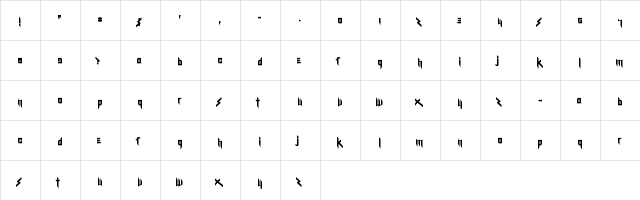
Kitty Katastrophe Regular
| Designer | Andrew McCluskey |
Design Context for Kitty Katastrophe Typeface
Kitty Katastrophe is a composed and adaptable typeface that performs quietly and consistently across a wide range of design contexts.